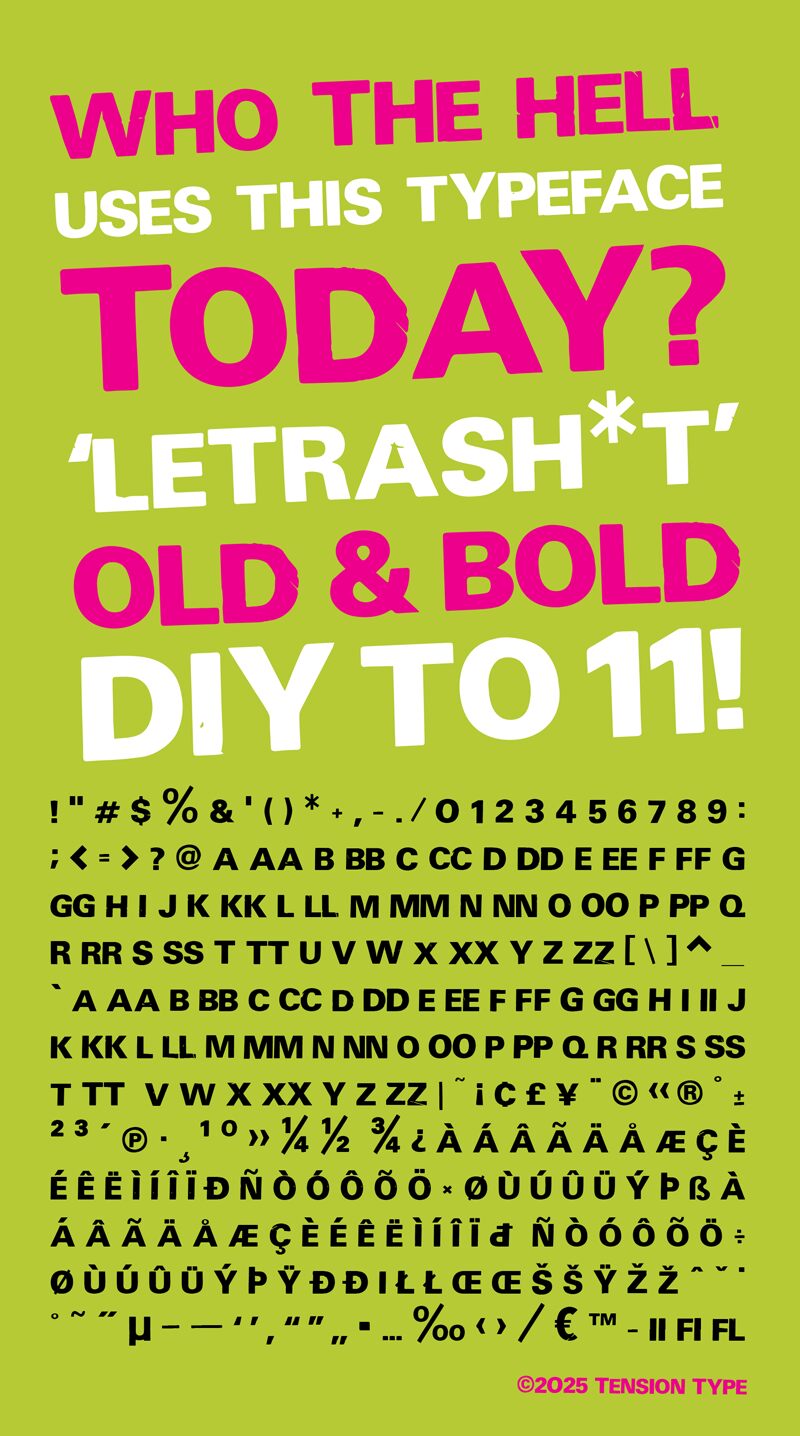
Letrashit font by Tension Type is a free font suitable for personal use. It features an eroded style with an aesthetic that is bold, colorful, and perky. Letters are slightly thick and appear to have uniquely shaped imperfections. While the font is entirely readable, it still maintains a creative and artistic appearance.
Pairing it with another font can also lead to a more interesting and impressive typographic design. Possible use cases for this font can spread across album covers, gig flyers, video games, packaging designs, and logos.
I couldn't find a distressed Letraset font for a design I was working on, so I decided to create one. I thought others might be searching for a similar style, so I'm sharing it here as a free font. Embrace your creativity and add a touch of punk flair to your projects with this unique font.